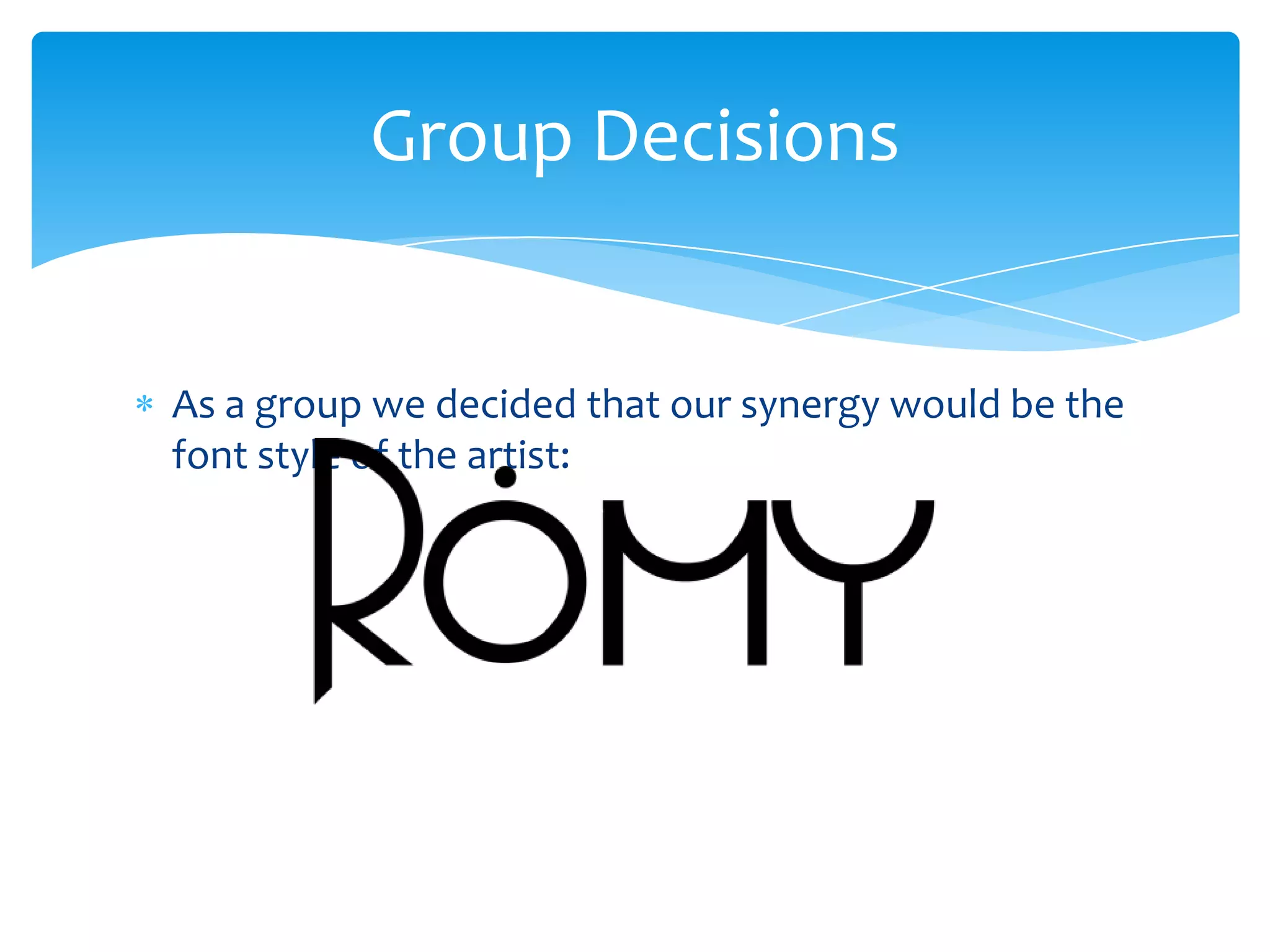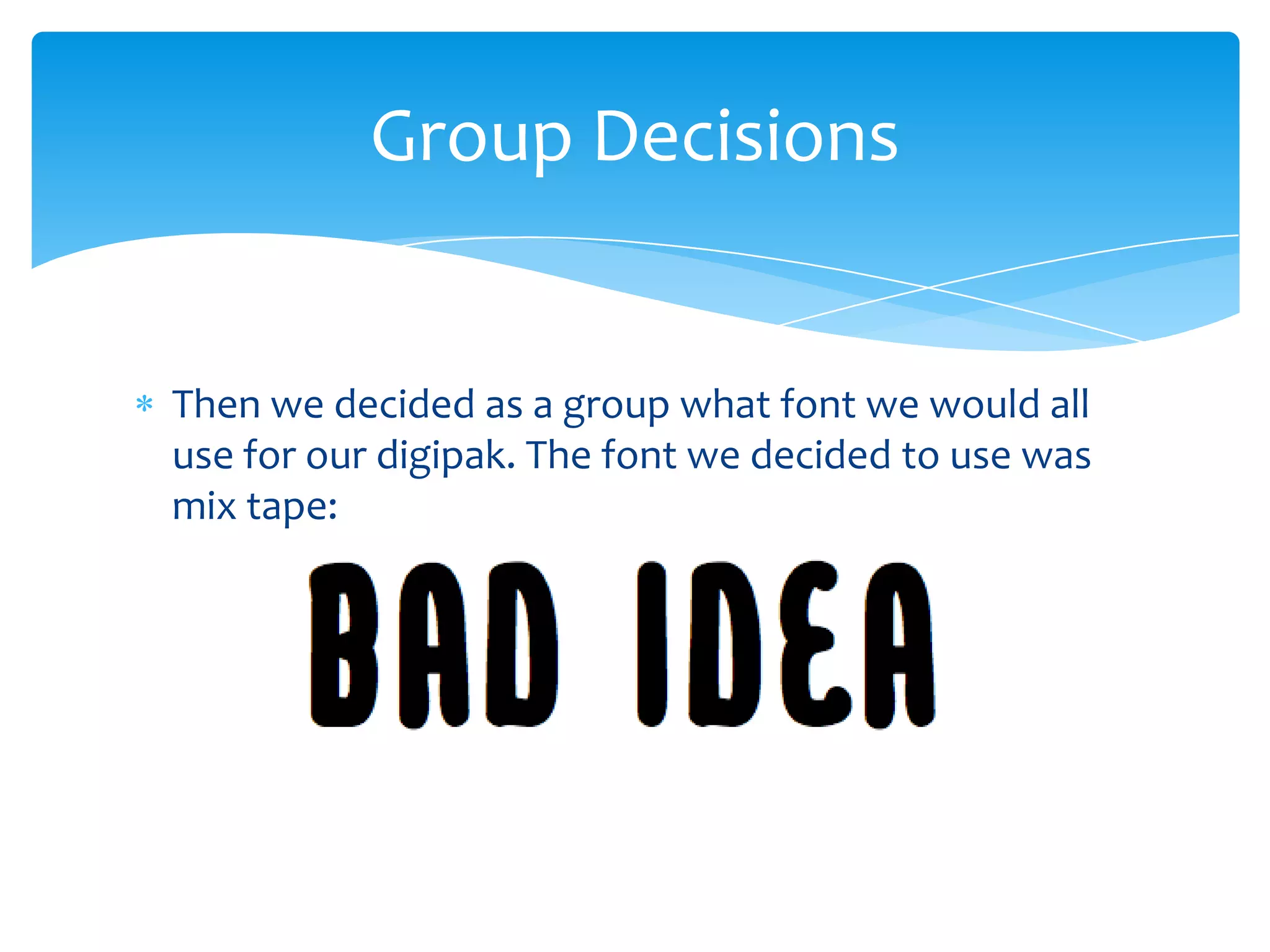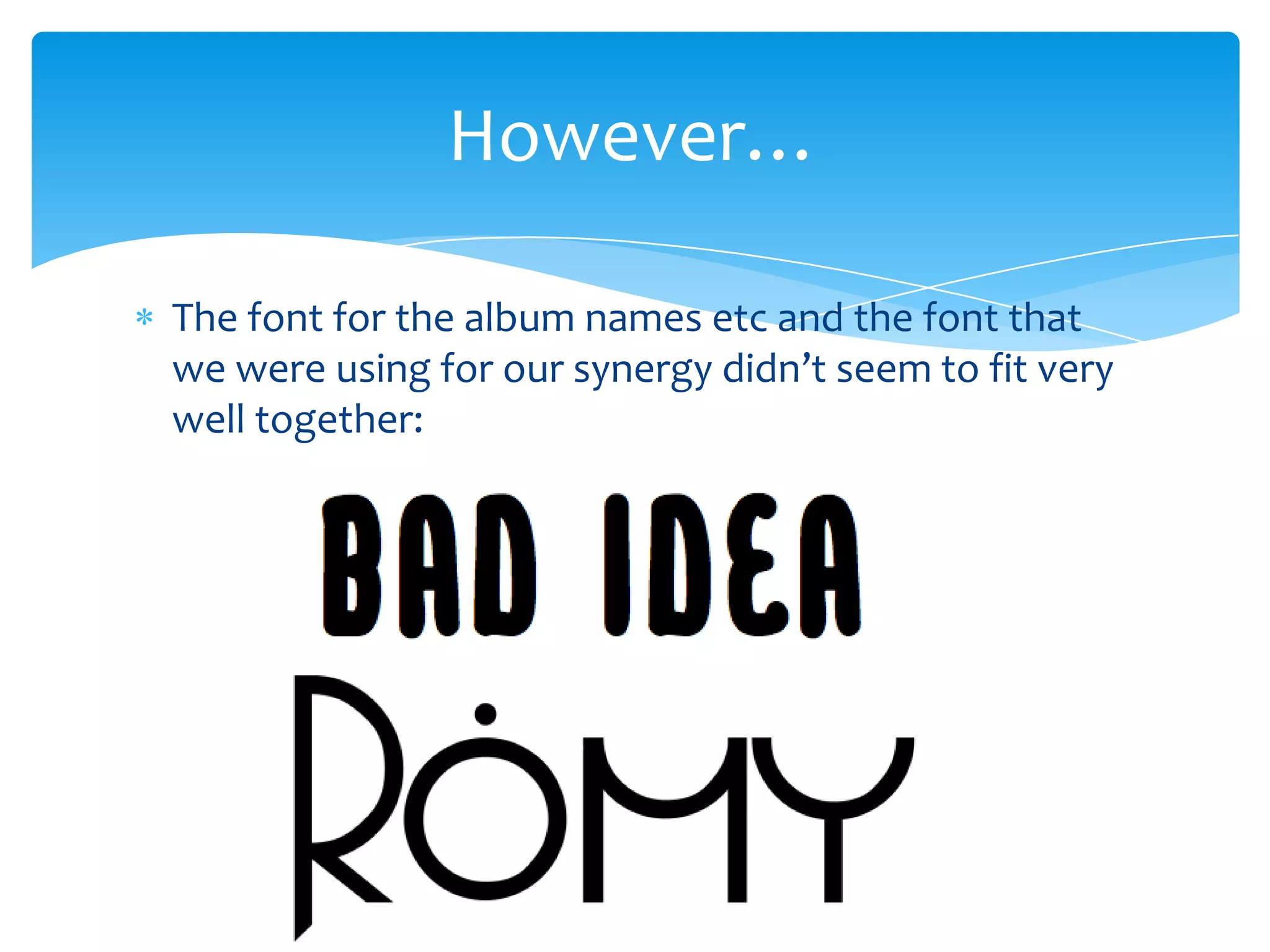
Font Issues..
Group Decisions
As a group we decided that our synergy would be the
font style of the artist:
Group Decisions
Then we decided as a group what font we would all
use for our digipak. The font we decided to use was
mix tape:
However…
The font for the album names etc and the font that
we were using for our synergy didn’t seem to fit very
well together:
So…
Now instead of all of us using the font ‘mix tape’ for the
album title and the track list, we are going to change that
font (if we want to) and pick our owns fonts that will
match the font that is being used for the artists name.
Obviously we can’t change the font of the artist name
because that is our synergy and if we change that, there
would be no obvious link between the music video, the
digipak and the advertisement for the artist.
But not to worry!
These things happen and we’ll find a way around it so
that the digipaks look amazing!